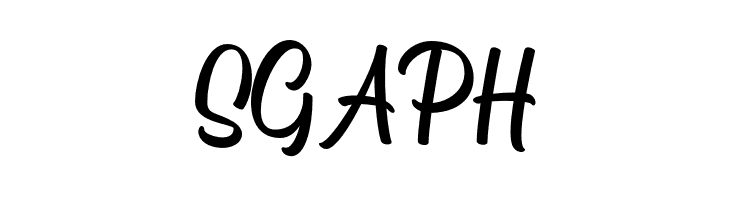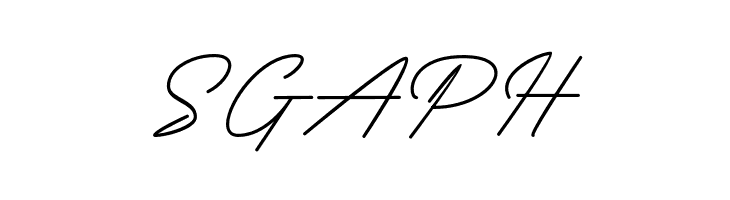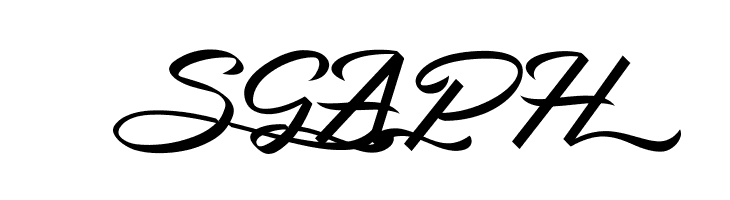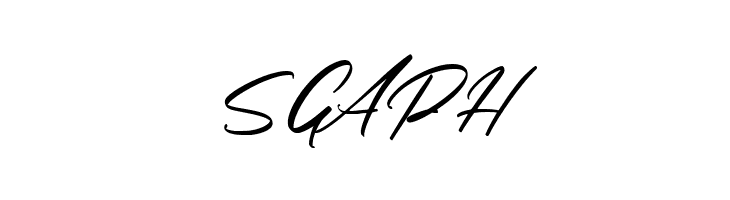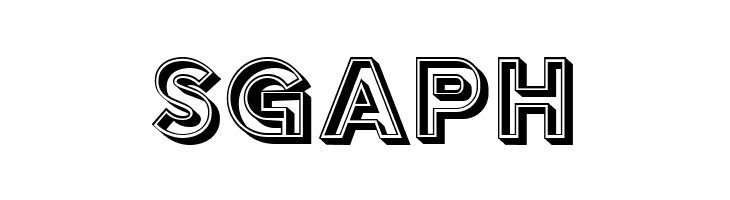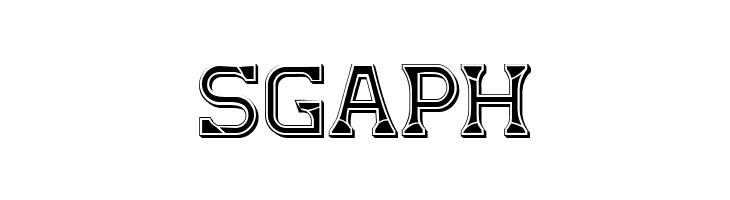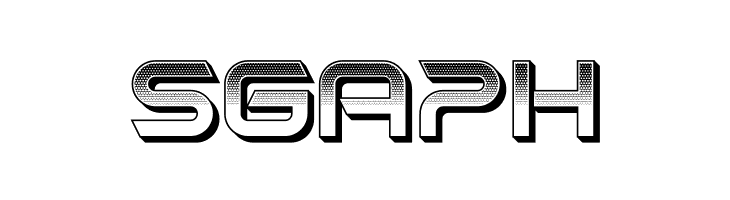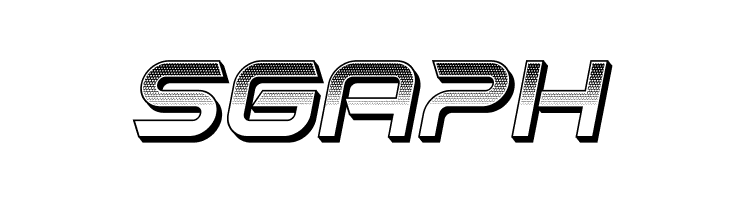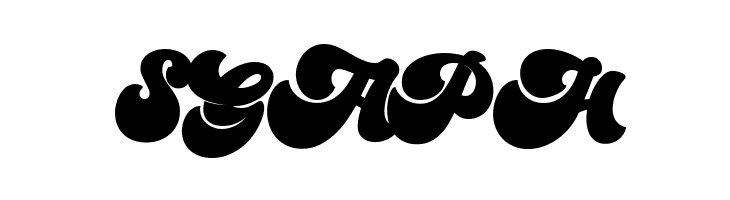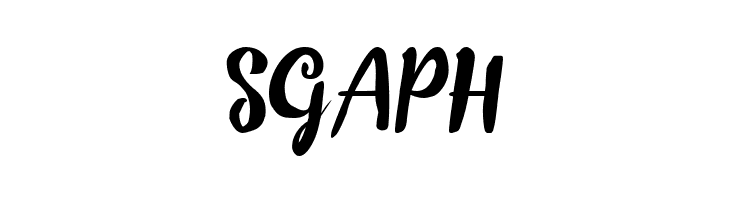
• Bahar Regular
A bold, decorative font with a double-line shadow effect.
• Bahari
A dynamic and flowing script font with elegant, cursive letterforms.
• Bahary
A playful handwritten font with smooth, flowing lines and a casual aesthetic.
• Bahasa Indonesia
A modern, geometric sans-serif font with a clean and balanced design.
• Bahaya Ngak
A bold, textured brush font with a dynamic and edgy style.
• Bahenoja-Demo
A modern, decorative font with elegant uppercase and script-like lowercase letters.
• Bahiana
A playful, hand-drawn font with tall, narrow characters and bold strokes.
• Bahila
A bold, dynamic font with angular strokes and sharp serifs, blending modern and vintage styles.
• Bahira
A bold, playful script font with a smooth, handwritten style.
• Bahisey
A dynamic and elegant script font with fluid, cursive strokes.
• Bahisey
A dynamic, cursive handwritten font with fluid strokes and elegant connections.
• Bahisy Regular
A bold, ornate blackletter font with a medieval, gothic style.
• Bahisy Regular
A bold, ornate blackletter font with intricate details and gothic flair.
• Bahuraksa
A dynamic and elegant script font with smooth, flowing letterforms.
• Baiklah
A cursive, handwritten-style font with elegant, flowing strokes.
• Baiklah
A fluid, elegant script font with a natural handwriting style.
• Baiknya
A bold, playful handwritten font with rounded, smooth strokes.
• Bailamore FPU Regular
A bold, playful font with thick, rounded strokes and a whimsical style.
• Bailey
An elegant and flowing script font with ornate uppercase letters and graceful lowercase forms.
• Bailey Bowers
A casual, handwritten font with a playful and informal style.